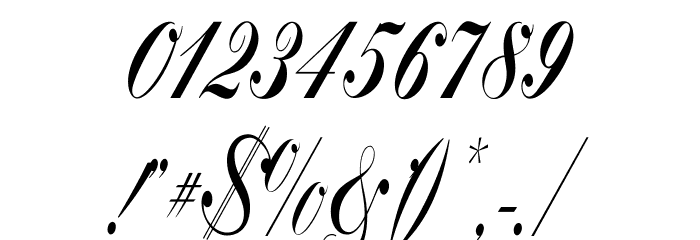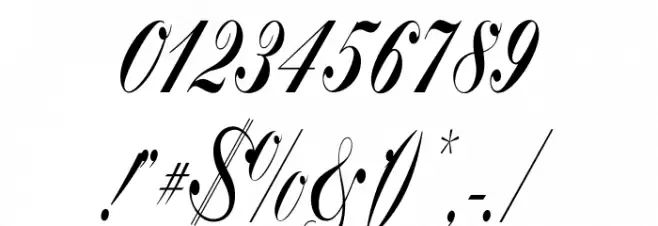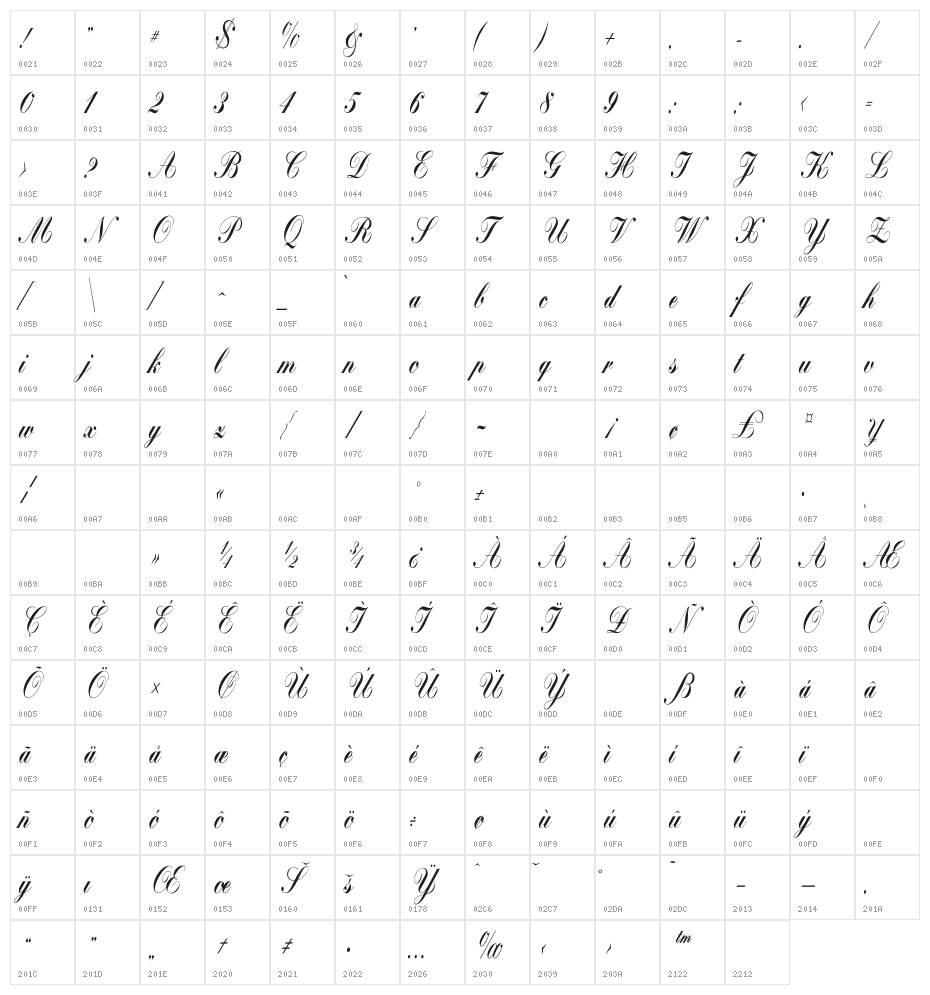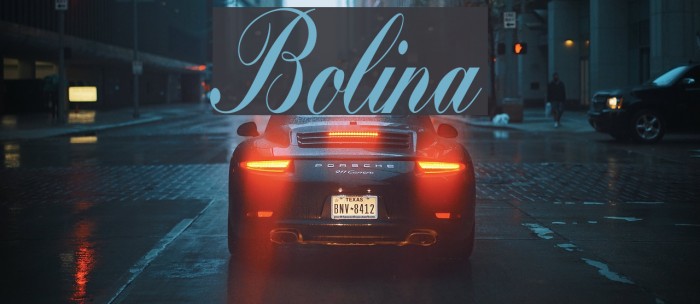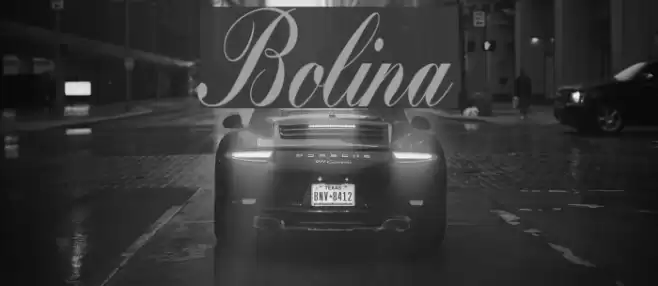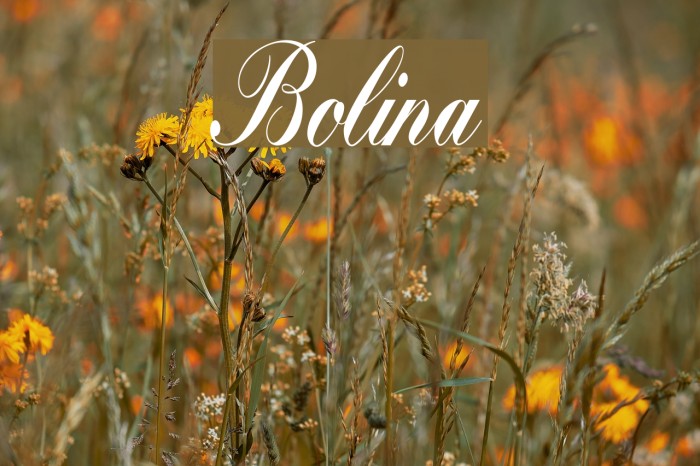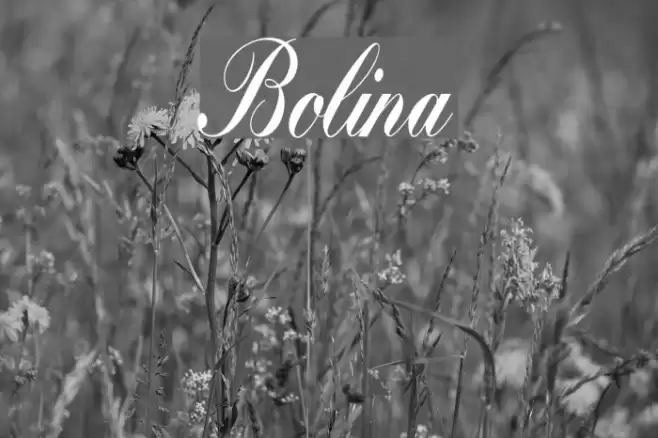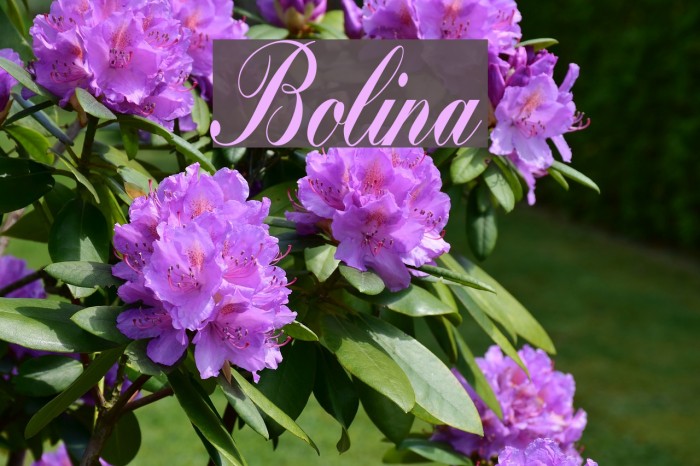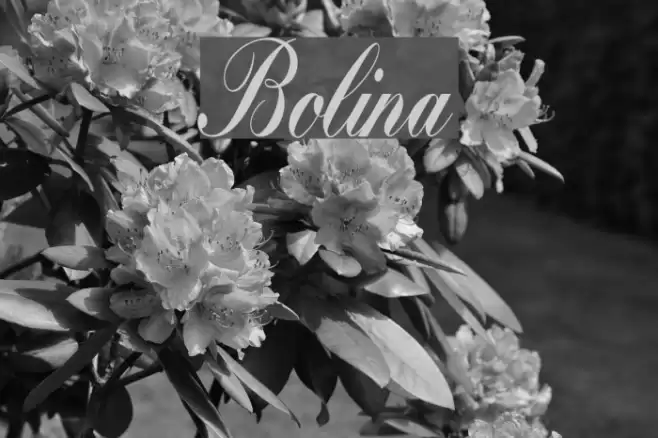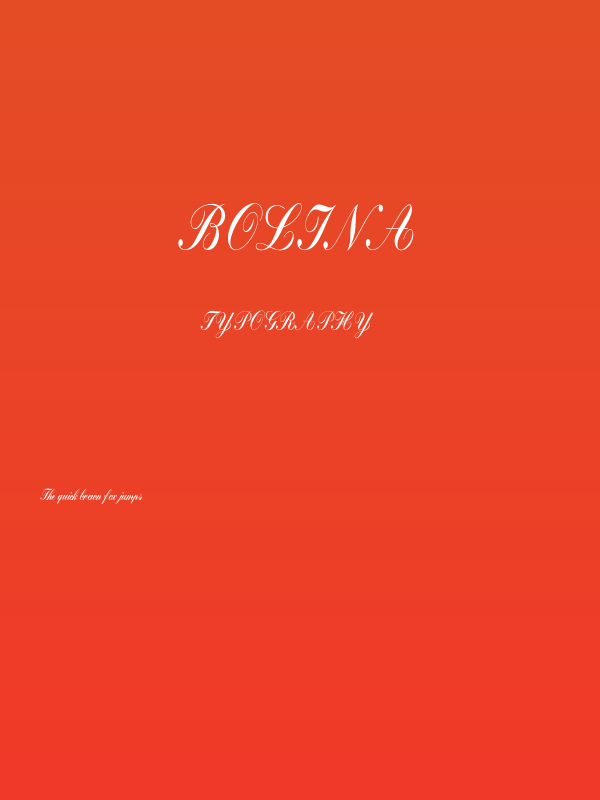
Bolina Font
Bolina Description
This elegant script font features a flowing, cursive style with a high contrast between thick and thin strokes. The uppercase letters are ornate, with sweeping curves and flourishes that give a sense of sophistication and grace. The lowercase letters maintain a consistent flow, enhancing readability while retaining the decorative nature of the script. Numbers and special characters are designed to match the overall aesthetic, making them suitable for a variety of formal applications. The font's design is reminiscent of classic calligraphy, yet it maintains a modern touch, making it versatile for both traditional and contemporary projects.
| Proposed Projects | Ideal for wedding invitations, elegant branding, luxury packaging, and formal event materials. |